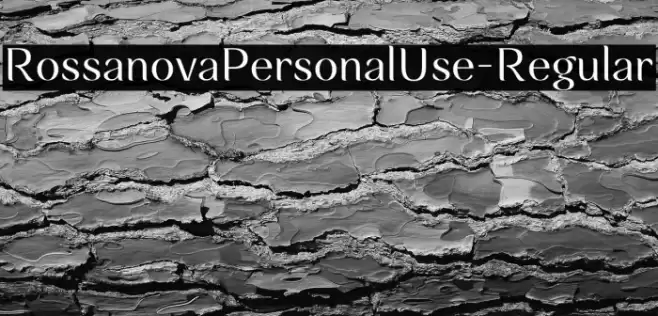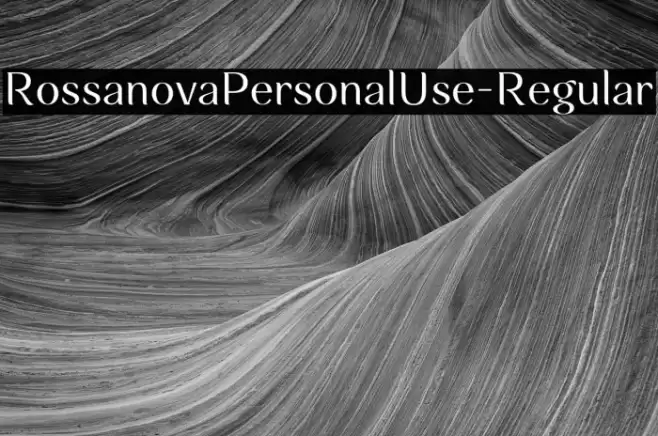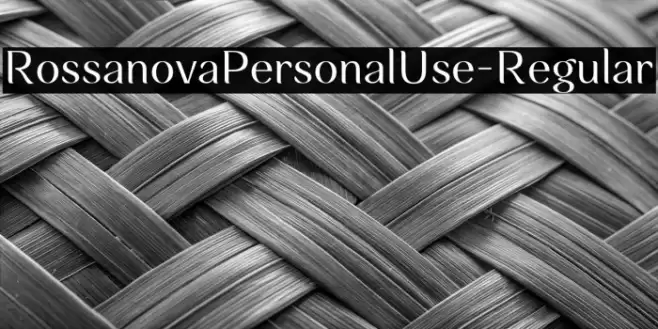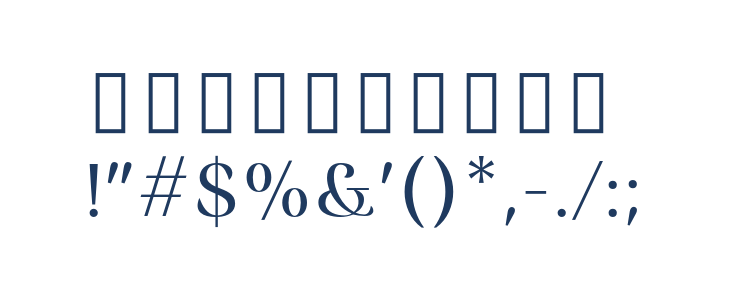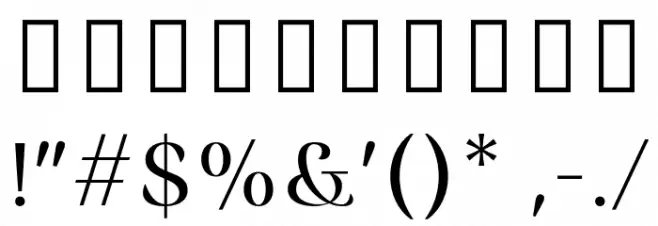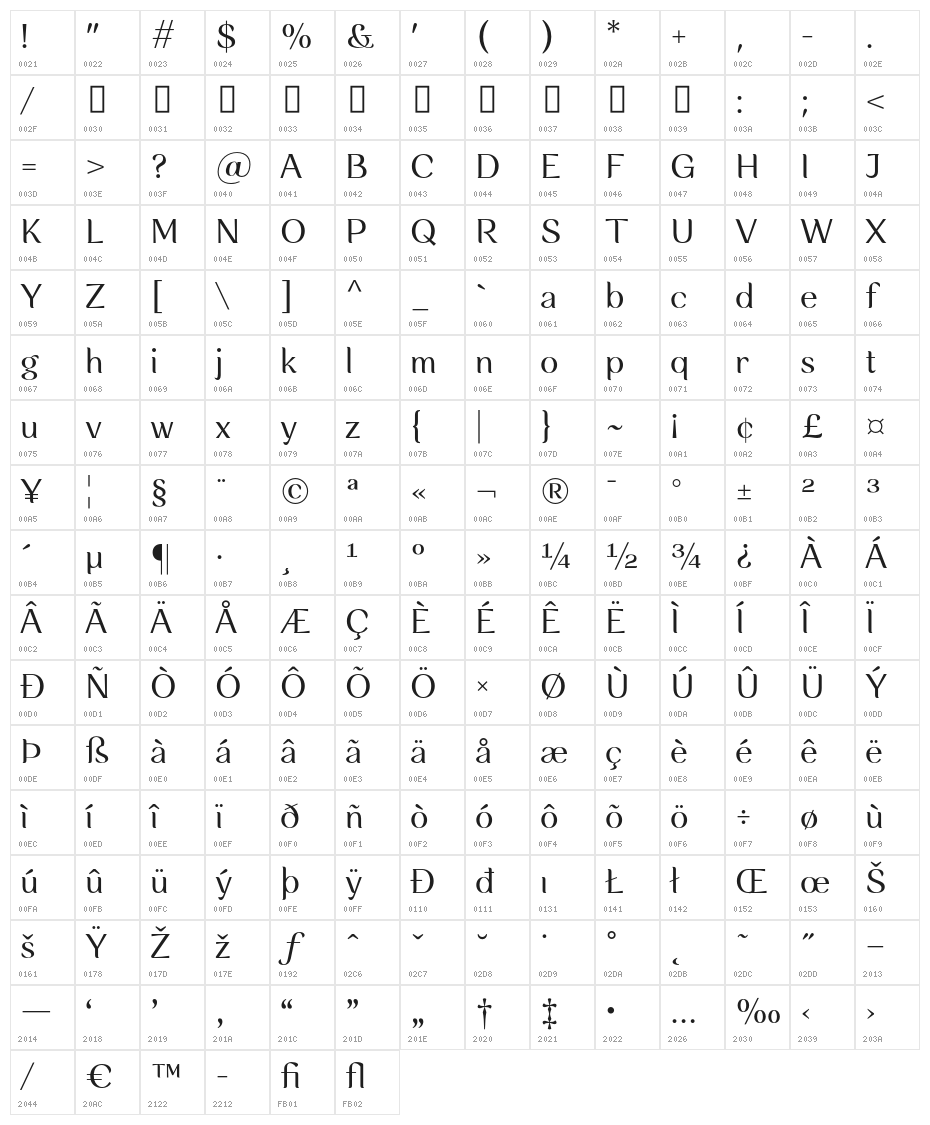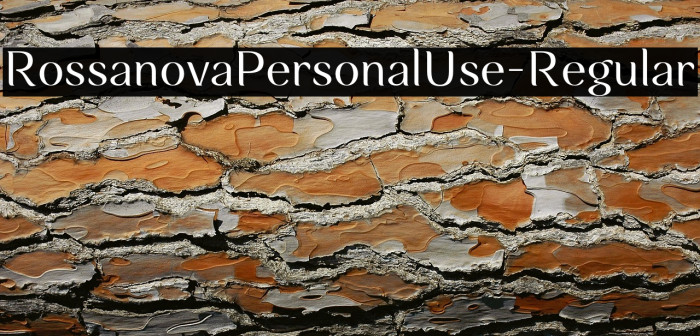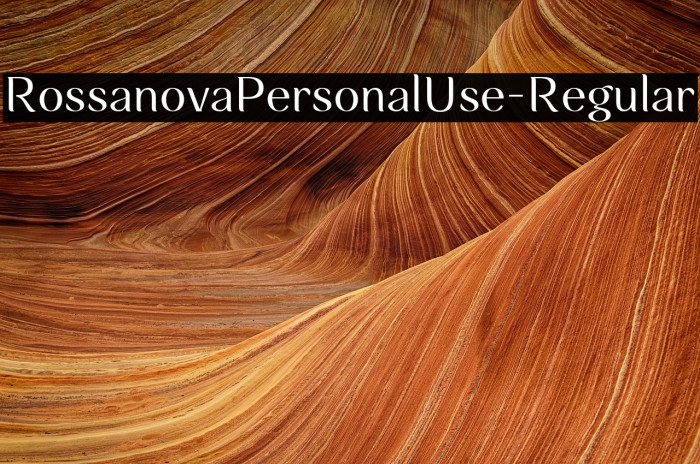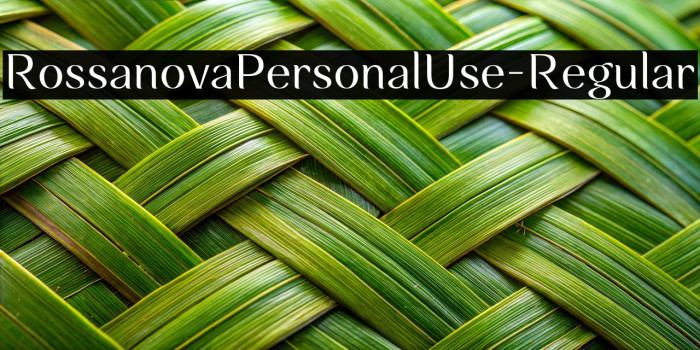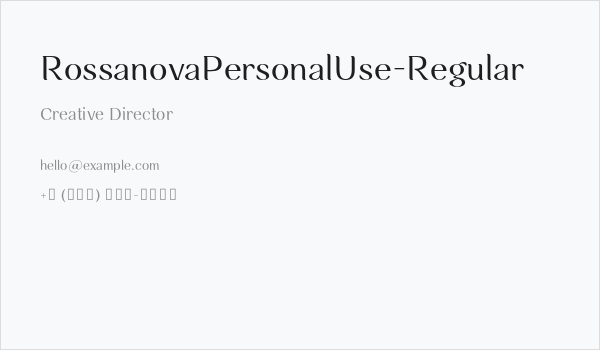
RossanovaPersonalUse-Regular Font
RossanovaPersonalUse-Regular Description
This font features a classic serif style with elegant and refined letterforms. The uppercase letters are tall and stately, while the lowercase letters maintain a consistent and harmonious flow. The serifs are pronounced, adding a touch of sophistication and tradition. The overall design is balanced, with moderate contrast between thick and thin strokes, giving it a timeless appeal. The numerals are clear and legible, and the special characters are well-integrated, maintaining the font's cohesive look. This typeface is versatile, suitable for both formal and creative applications.
A classic serif font with elegant, refined letterforms and moderate stroke contrast from Regular fonts.
- Proposed Projects: Ideal for book covers, editorial design, branding, and formal invitations.
- Overall Style: Classic